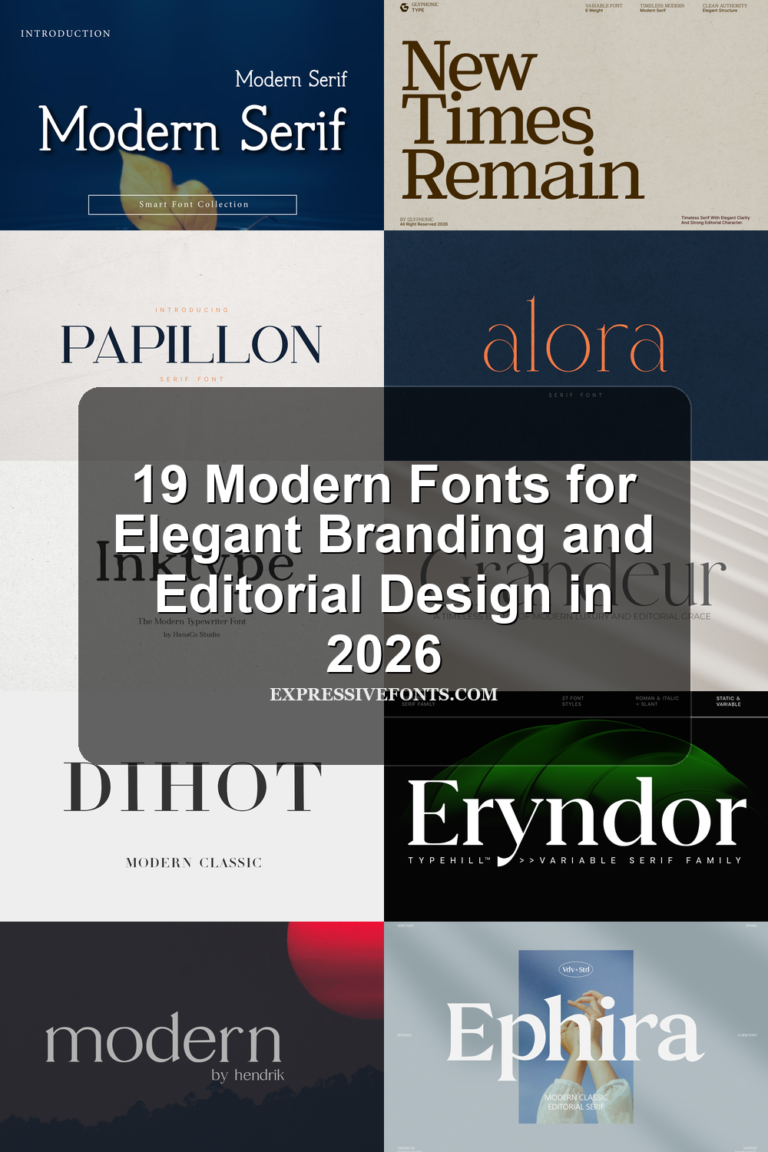
19 Modern Fonts for Elegant Branding and Editorial Design in 2026
Modern fonts are moving toward cleaner structure, sharper contrast, and more editorial personality in 2026. This collection brings together 19 refined typefaces for designers who need polished typography for logos, branding, packaging, fashion visuals, and premium digital layouts. Fenno Font Best For: logos, branding, editorial designs, high-end designs Fenno Font has a tall classic serif…